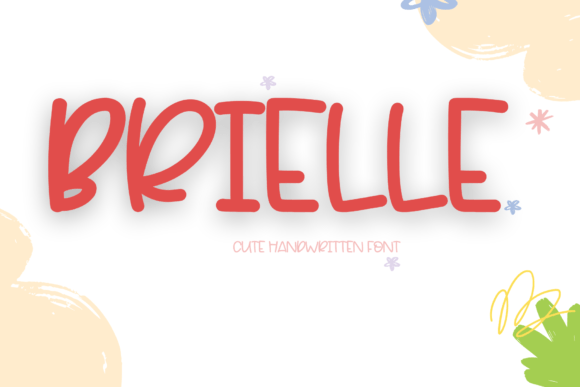
The Hunt for the Perfect Font: Discovering Brielle
Ah, the elusive perfect font. We’ve all been there – scrolling through font libraries, testing out different styles, and still, nothing seems quite right. I recall a particularly frustrating project where I was tasked with creating a wedding invitation suite. The client wanted something elegant, yet playful; classic, yet modern. I must have tried on a dozen fonts before I finally stumbled upon Brielle.
This charming handwritten font has been a game-changer for me, and I’m excited to share it with you. Brielle is a trendy, contemporary font with a timeless feel, inspired by classic calligraphy. Its impeccable form and cute, friendly vibe make it perfect for adding elegance and class to any design project.
What I Love About Brielle
So, what makes Brielle so special? Here are a few things that I absolutely love:
• ✨ Elegant yet approachable: Brielle strikes the perfect balance between sophistication and playfulness.
• ✅ Versatile: This font can be used for a wide range of projects, from logos and wedding designs to social media posts and product packaging.
• 💫 Timeless feel: Brielle’s classic inspiration ensures it won’t go out of style anytime soon.
• 🎨 OpenType features: Brielle comes with a range of OpenType features, including glyphs and stylistic alternates, giving you plenty of creative options.
While Brielle is an amazing font, it’s not without its quirks. Here are a few things to keep in mind:
• 🤔 Limited use in very formal contexts: While Brielle is elegant, it may not be suitable for very formal or traditional projects, such as corporate reports or academic papers.
• ⚠️ Some letters may require manual kerning: As with any font, you may need to adjust the kerning on certain letters to get the perfect look.
The Story Behind Brielle
While the true story behind Brielle’s creation may be unknown, it’s easy to imagine a designer sitting at their desk, pouring over classic calligraphy texts and seeking to create a font that would bring a touch of elegance to modern designs. With its timeless feel and versatile nature, Brielle is sure to become a favorite among designers and crafters.
Q: What type of projects is Brielle best suited for?
A: Brielle is a versatile font that can be used for a wide range of projects, including logos, wedding designs, social media posts, product packaging, and more.
Q: Does Brielle come with OpenType features?
A: Yes, Brielle comes with a range of OpenType features, including glyphs and stylistic alternates.